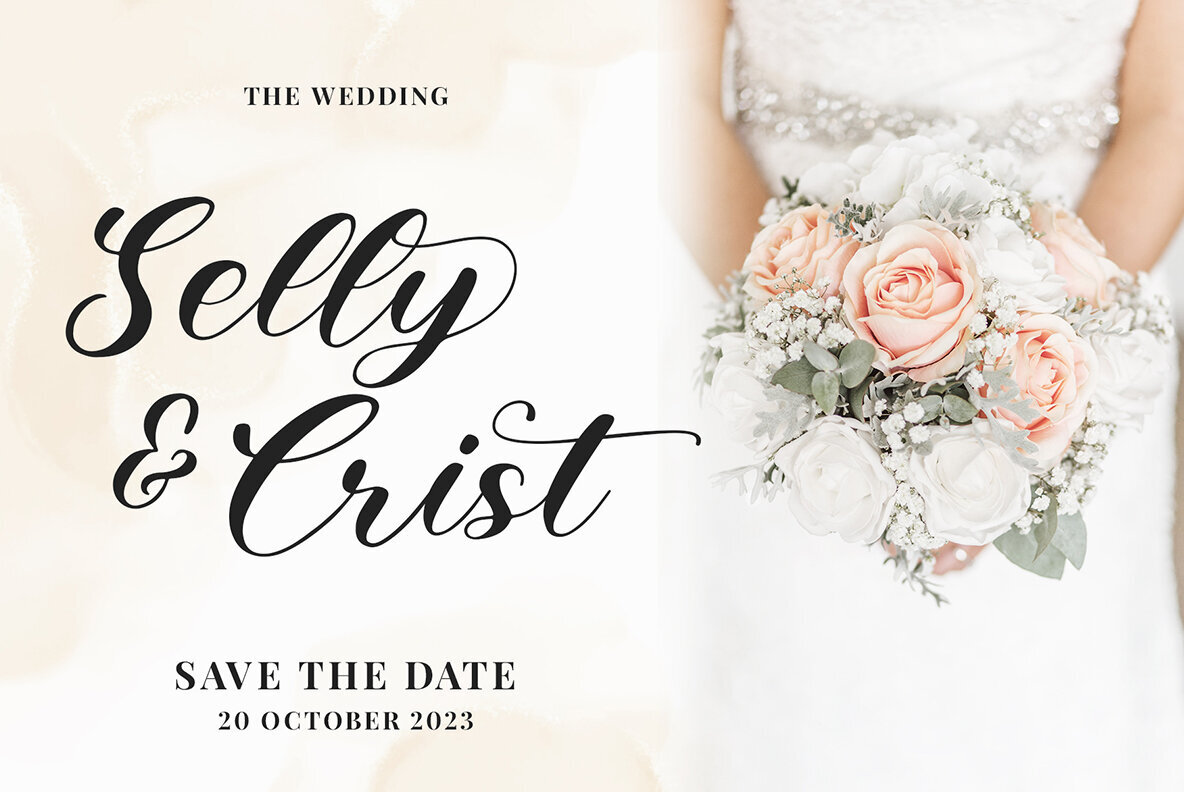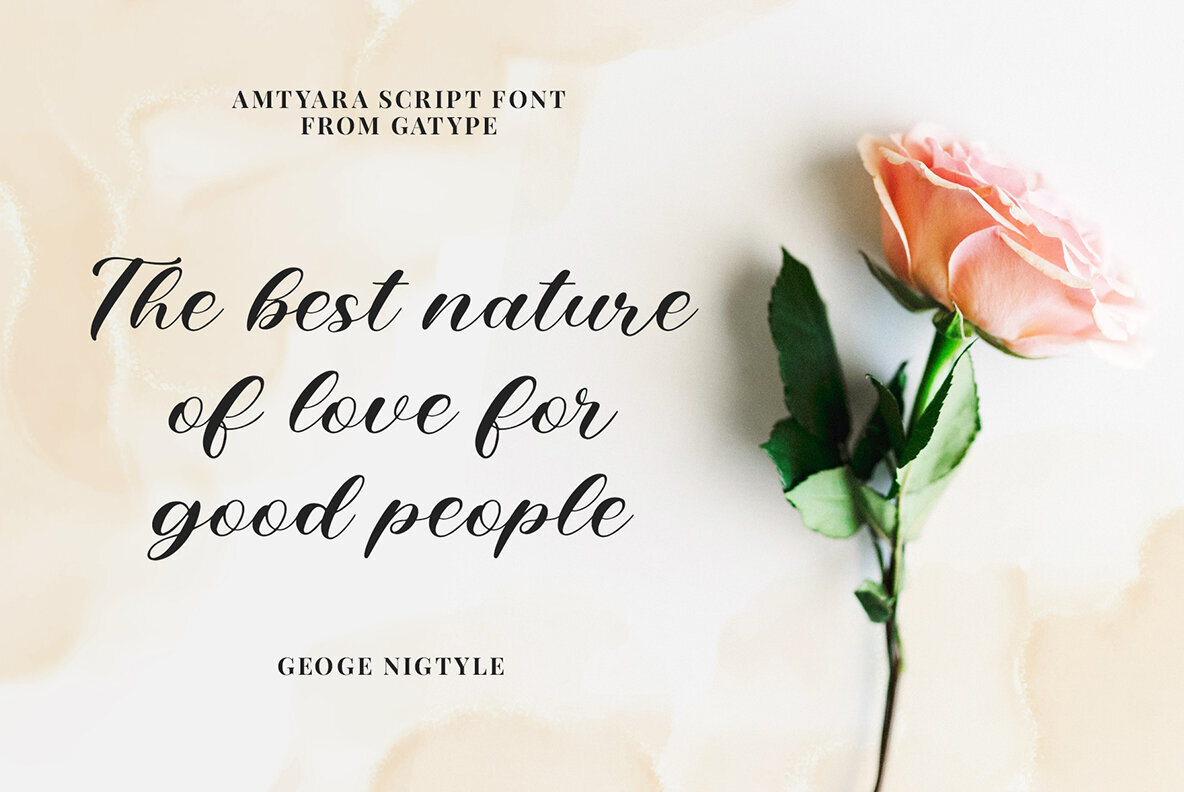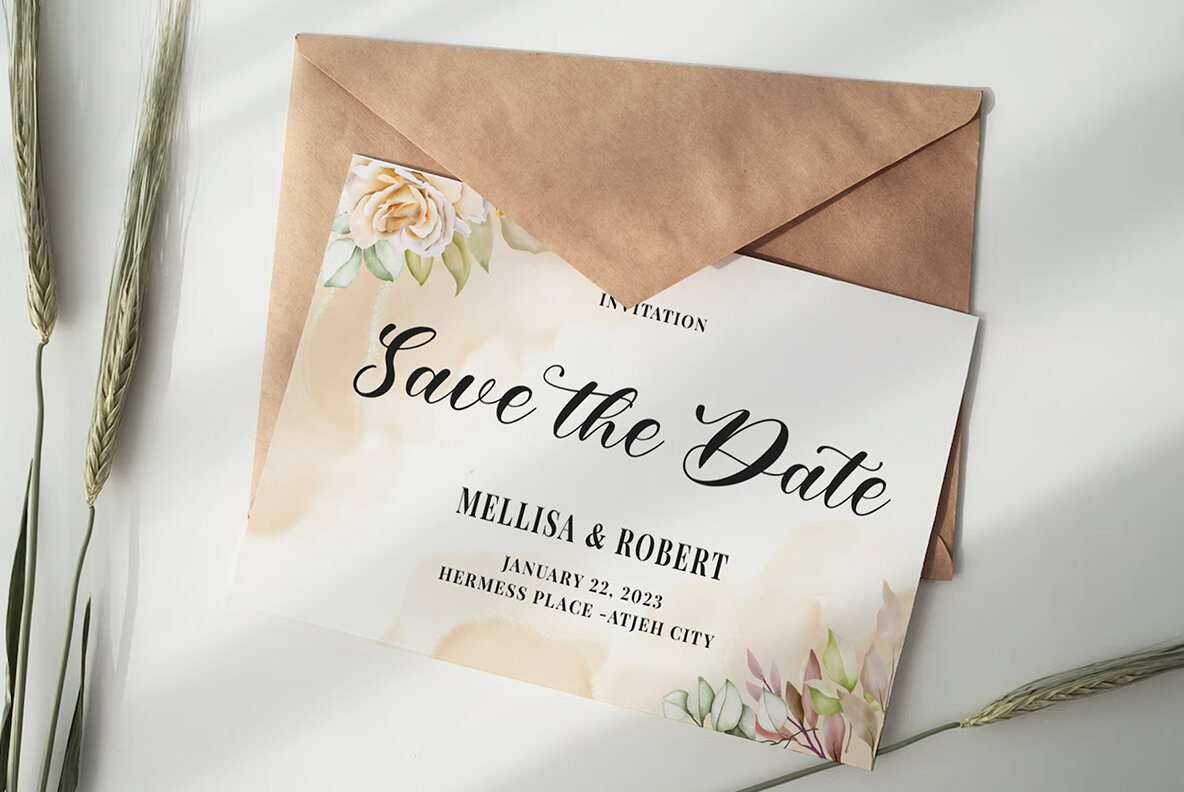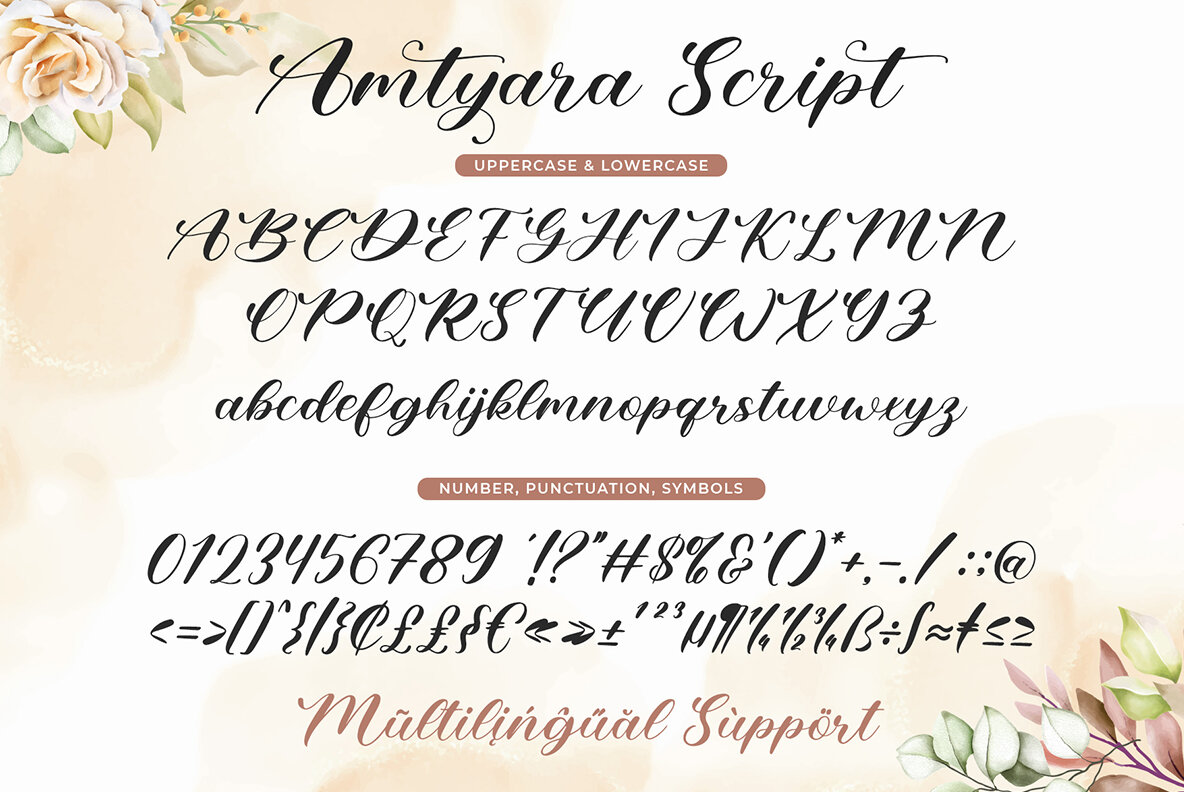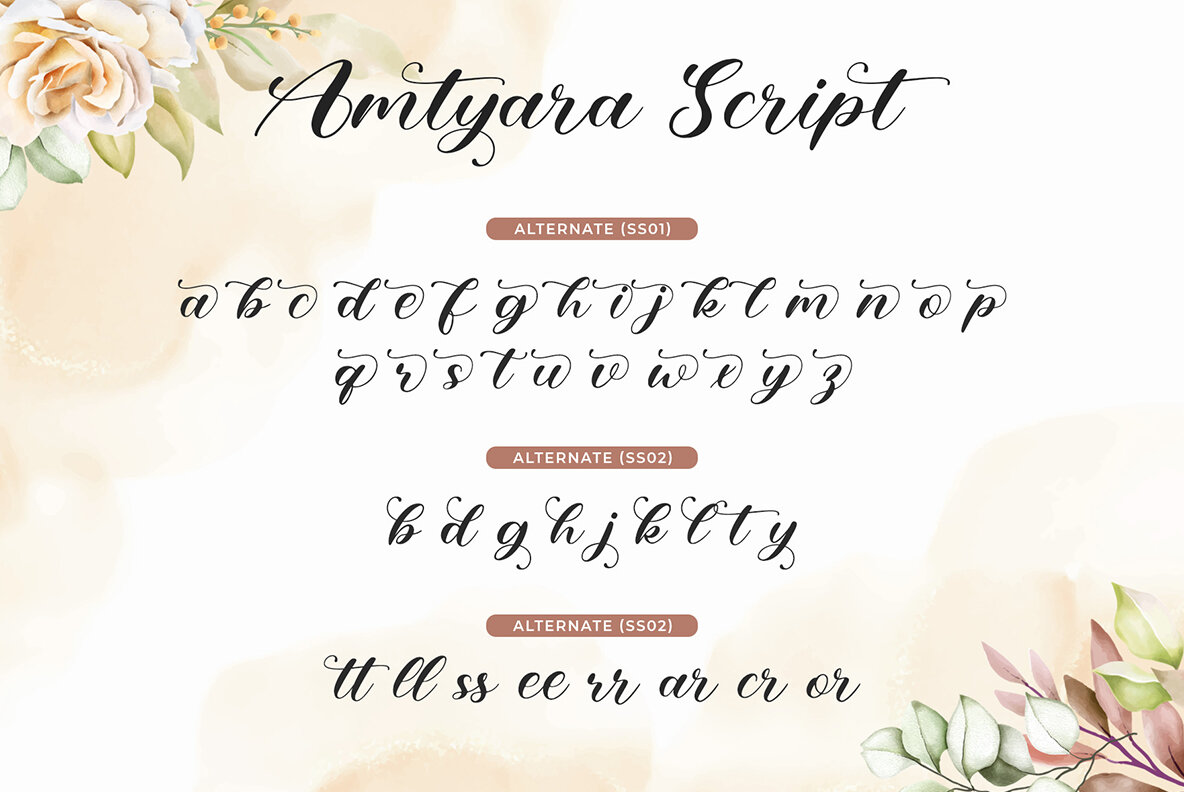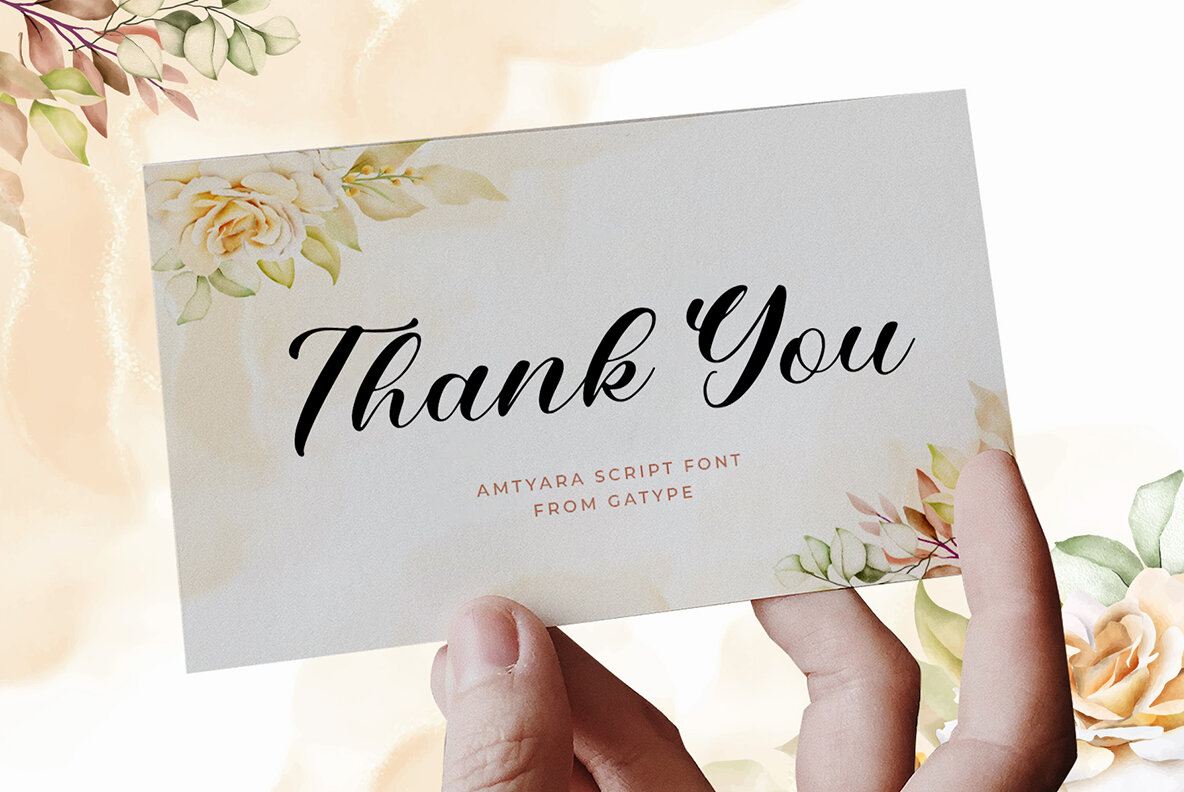
Amtyara Font
Amtyara Script
Amtyara Script is a sophisticated modern calligraphy font, known for its elegant strokes and versatility. Perfect for enhancing various design projects, this font is ideal for logos, product packaging, wedding invitations, branding, headlines, signage, labels, signatures, book covers, posters, and quotes. For any assistance or queries, please feel free to reach out. Enjoy your designing experience!Amtyara Script: Elegant Modern Calligraphy